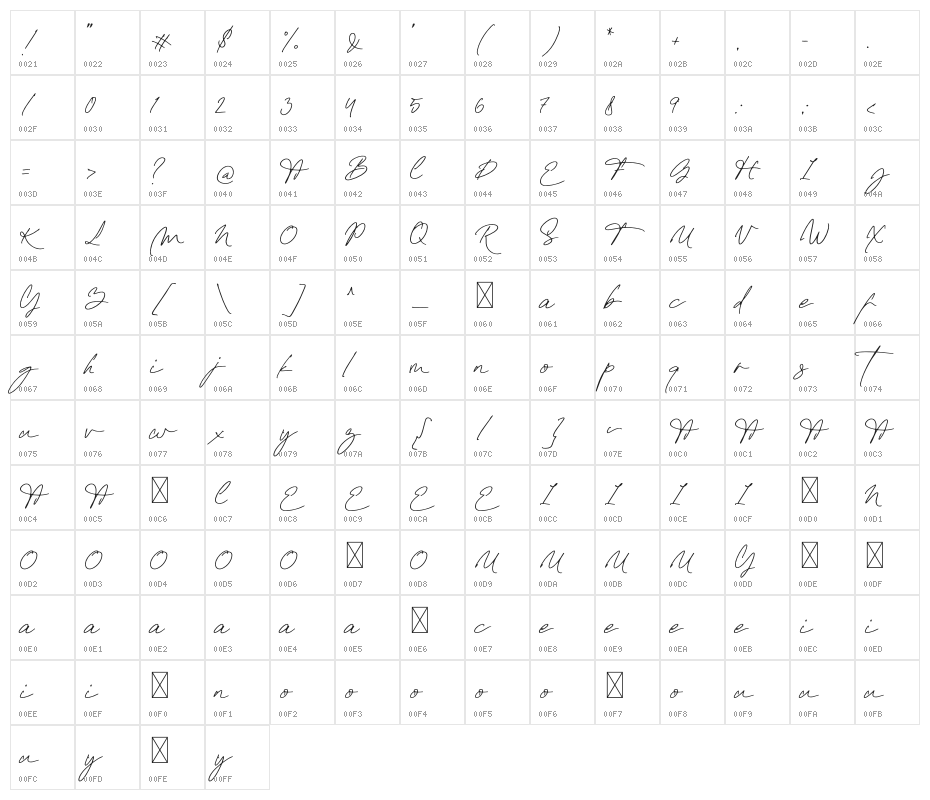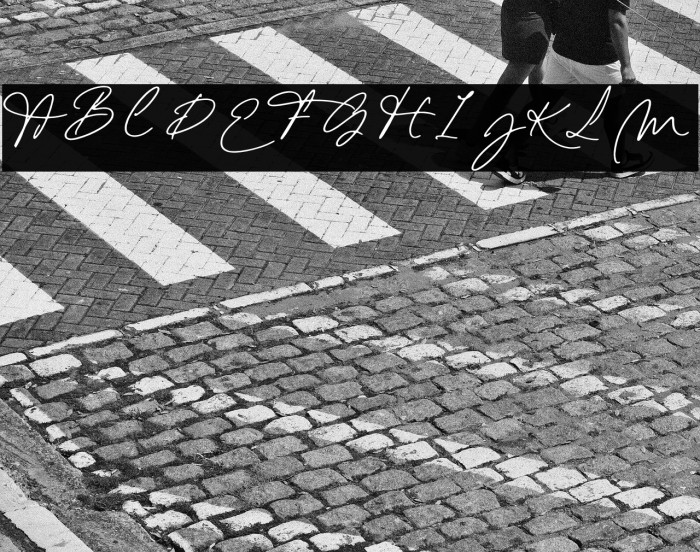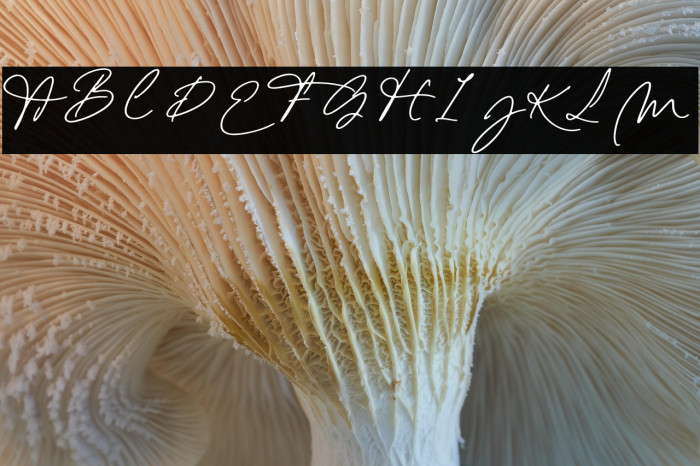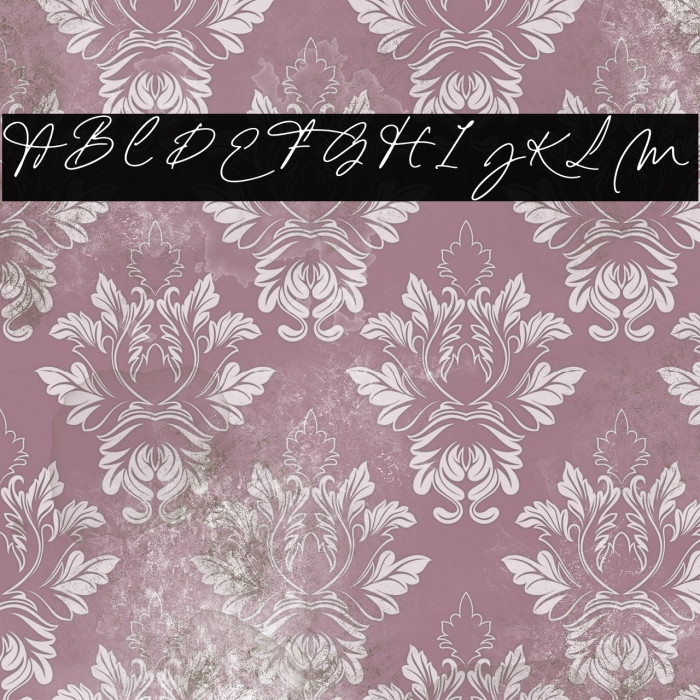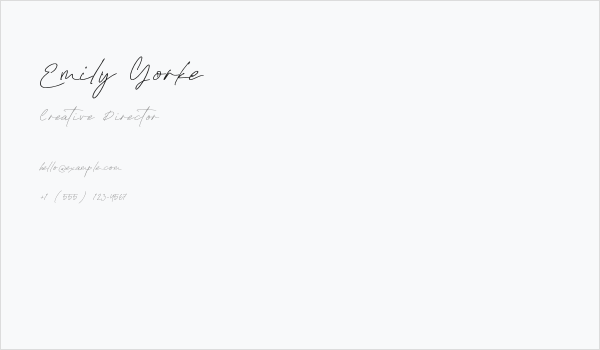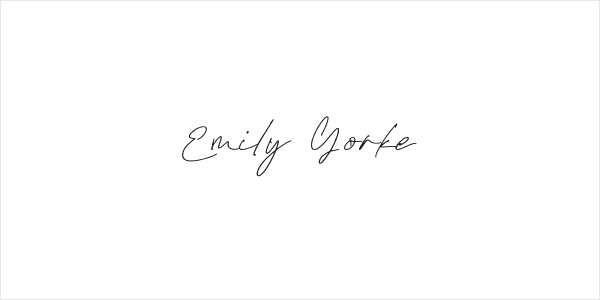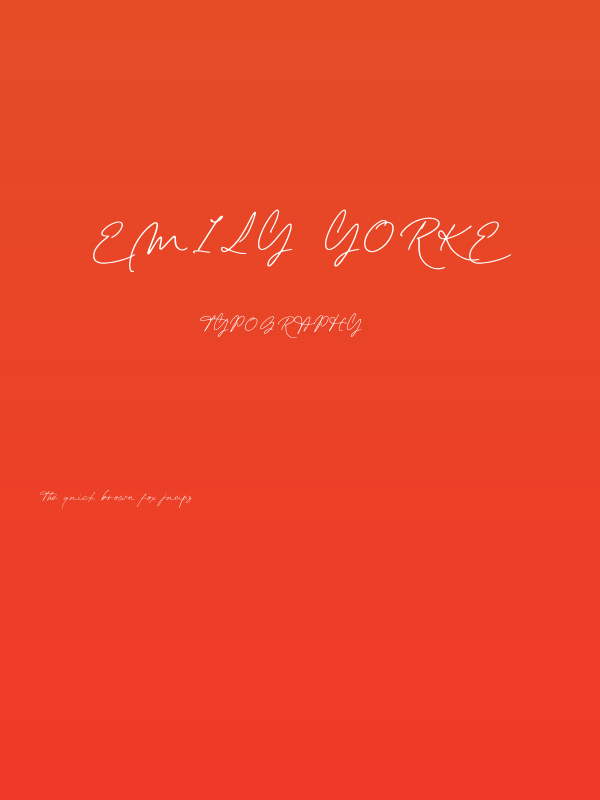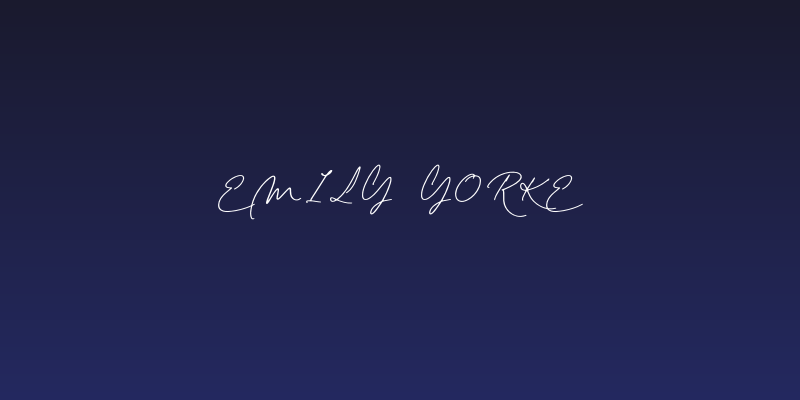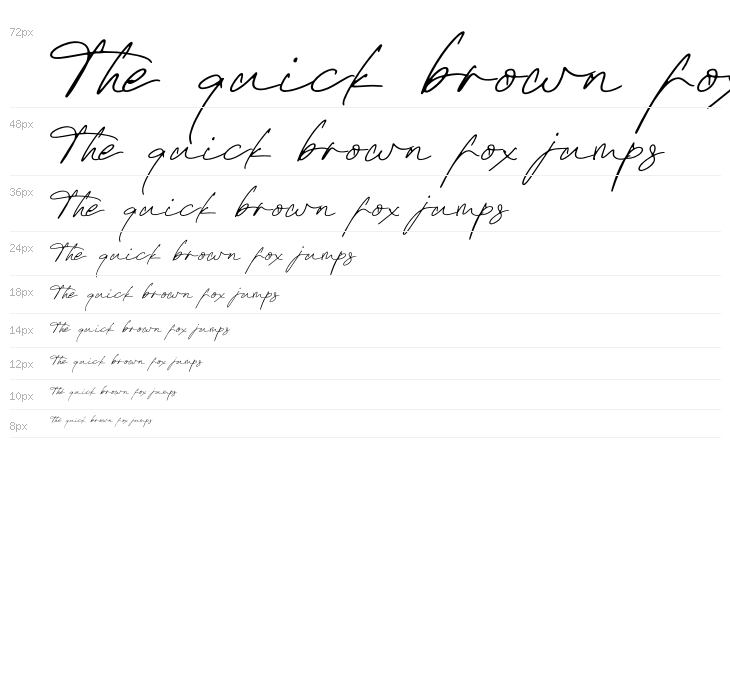
Emily Yorke Font
Emily Yorke Description
This font exudes a sophisticated and elegant handwritten style, characterized by fluid, cursive strokes that mimic natural handwriting. The letters are connected in a seamless flow, creating a sense of continuity and grace. The uppercase letters are slightly more ornate, with loops and flourishes that add a touch of flair. The lowercase letters maintain a consistent rhythm, enhancing readability while preserving the artistic quality. Numbers and special characters are crafted with the same attention to detail, ensuring a cohesive look across all elements. The overall appearance is both classic and contemporary, making it versatile for various design applications.
| Proposed Projects | Ideal for wedding invitations, personal branding, greeting cards, and elegant stationery. |